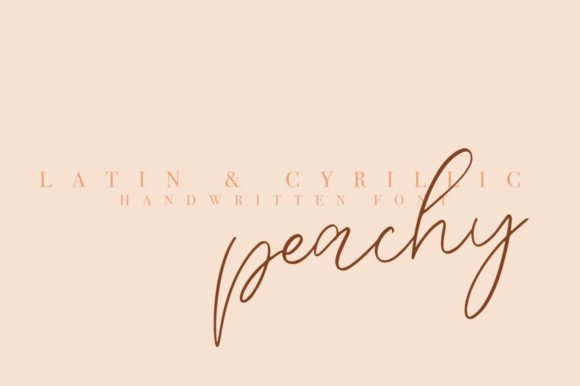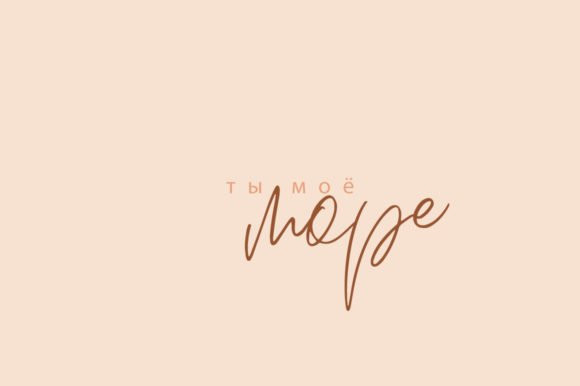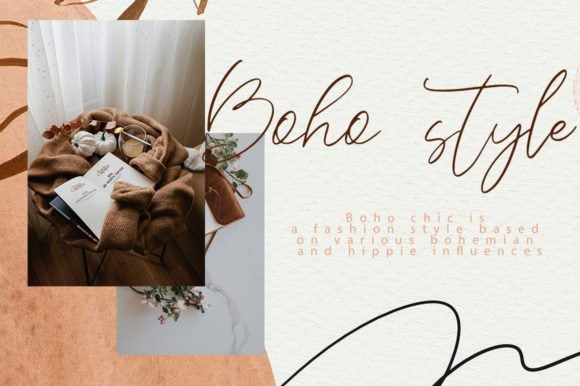
Peachy Font
Peachy is a thin and flowing handwritten font. This font is perfect for a wide variety of project such as: logo, photography, watermark, quotes, blog header, poster, wedding, branding, logo, fashion, apparel, letter, invitation, stationery and more.